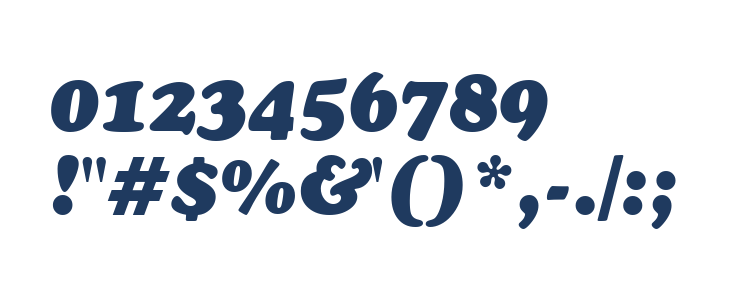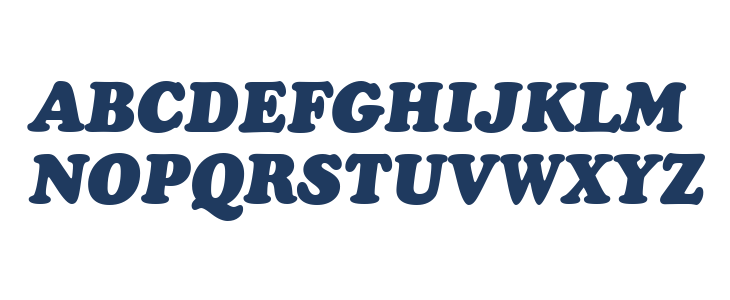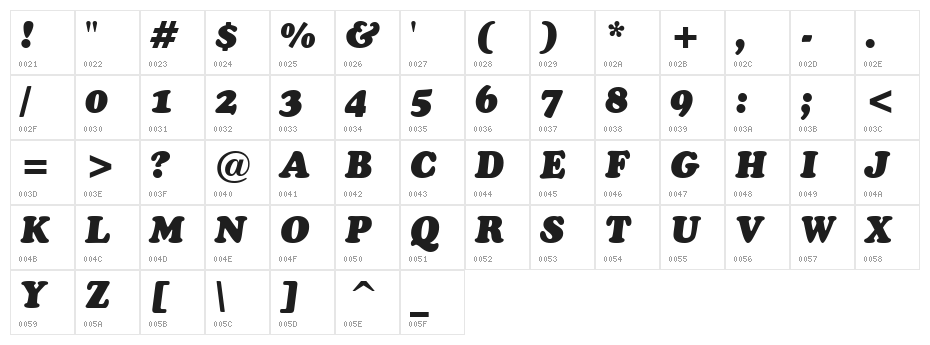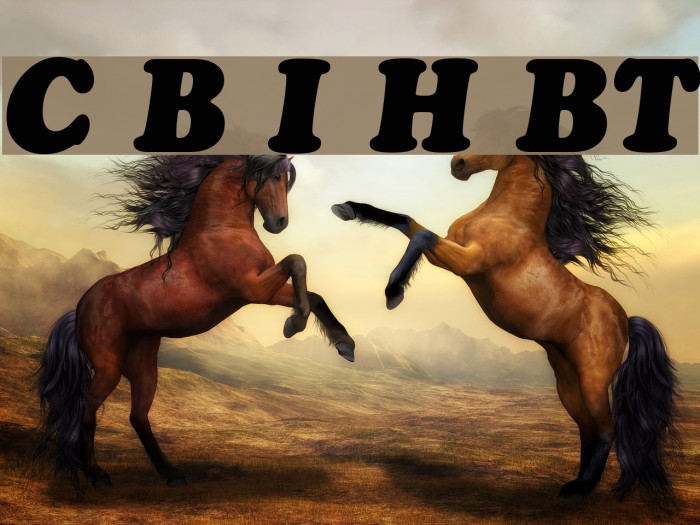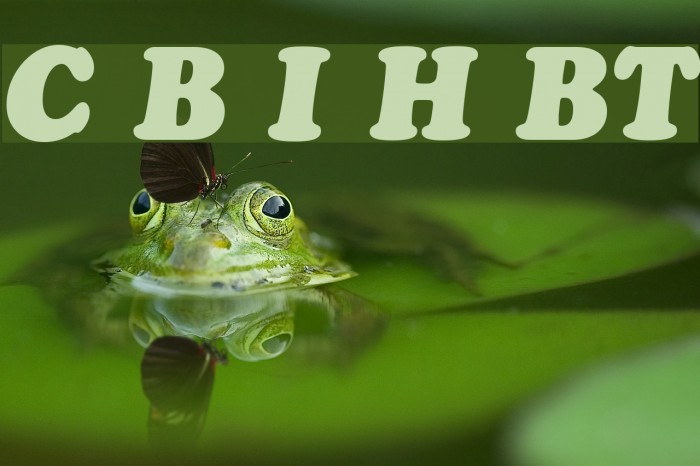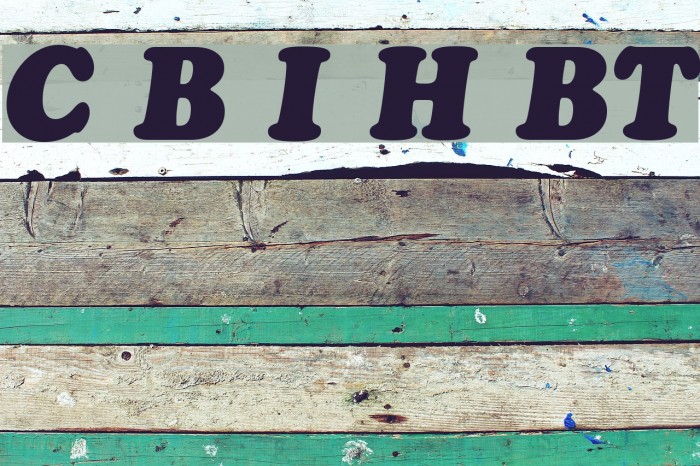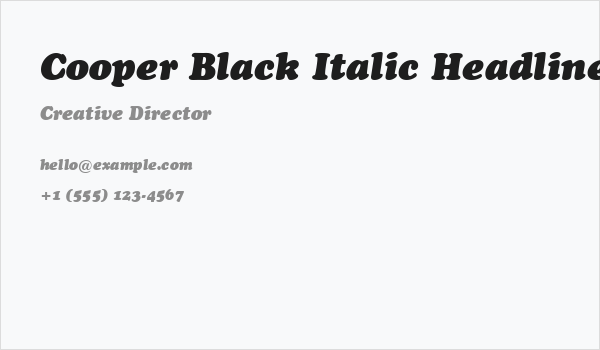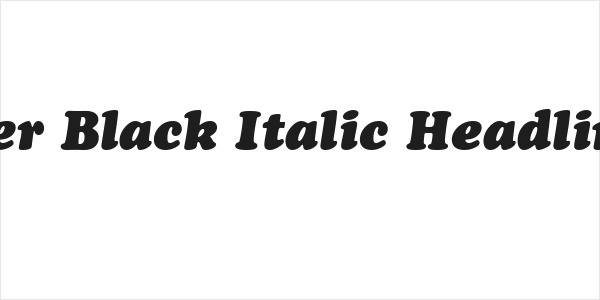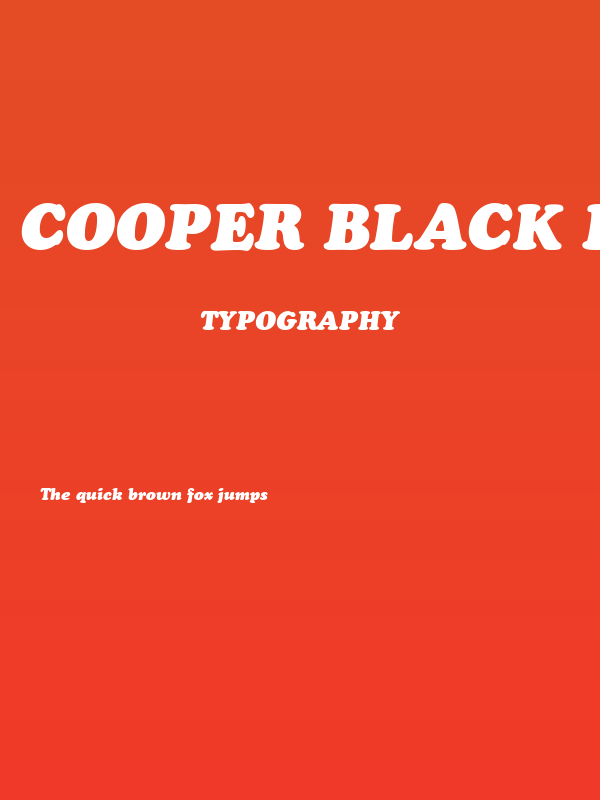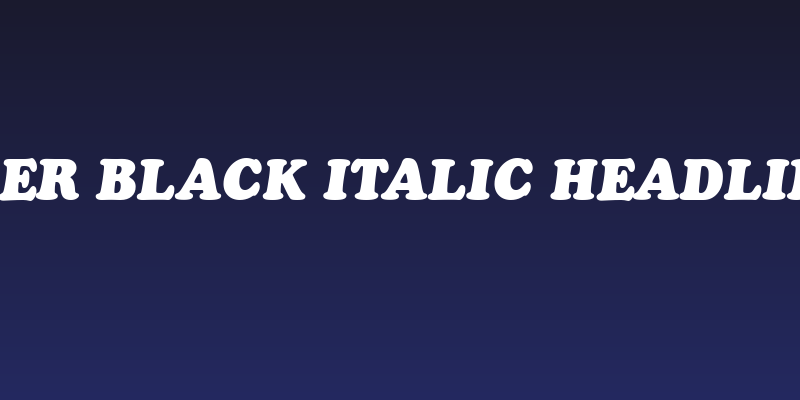
Cooper Black Italic Headline BT Font
Cooper Black Italic Headline BT Description
This font features a bold and rounded style with a playful and retro aesthetic. The characters are thick and have a slight slant, giving them an italicized appearance. The strokes are consistent in weight, contributing to a uniform look across all characters. The rounded edges and smooth curves add a friendly and approachable feel, making it suitable for designs that aim to convey warmth and nostalgia. The font includes a full set of uppercase and lowercase letters, numbers, and a variety of special characters, ensuring versatility in usage.
| Overall Style | Retro |
| Proposed Projects | Ideal for vintage-themed posters, playful branding, children's book covers, and retro advertisements. |